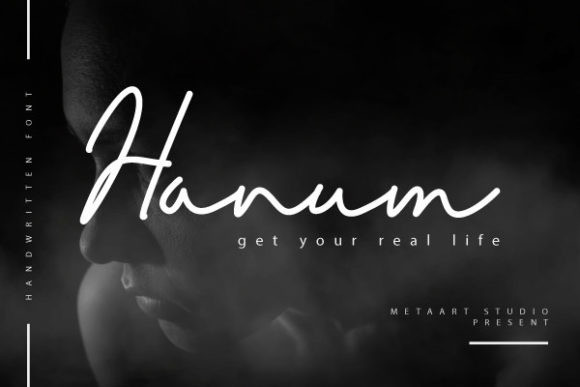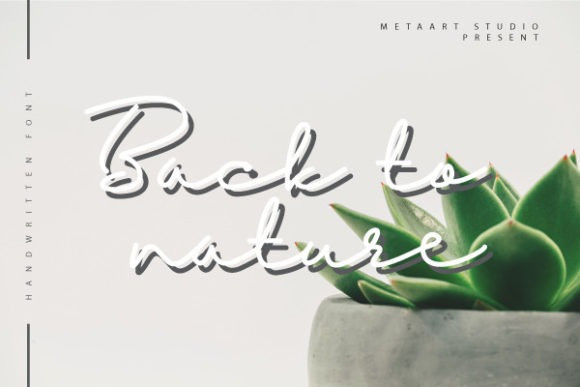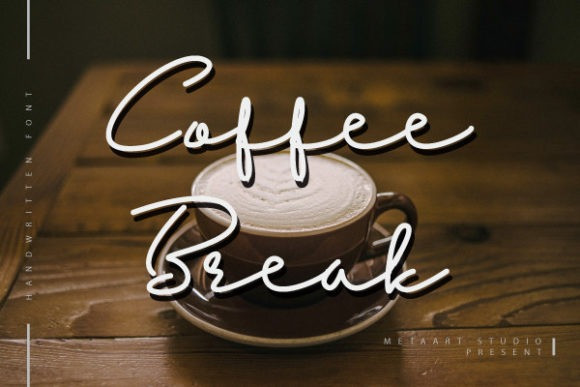
Hanum Font
Hanum is a romantic and sweet calligraphy typeface with elegant characters. It will add a touch of elegance to any design project you want to create!